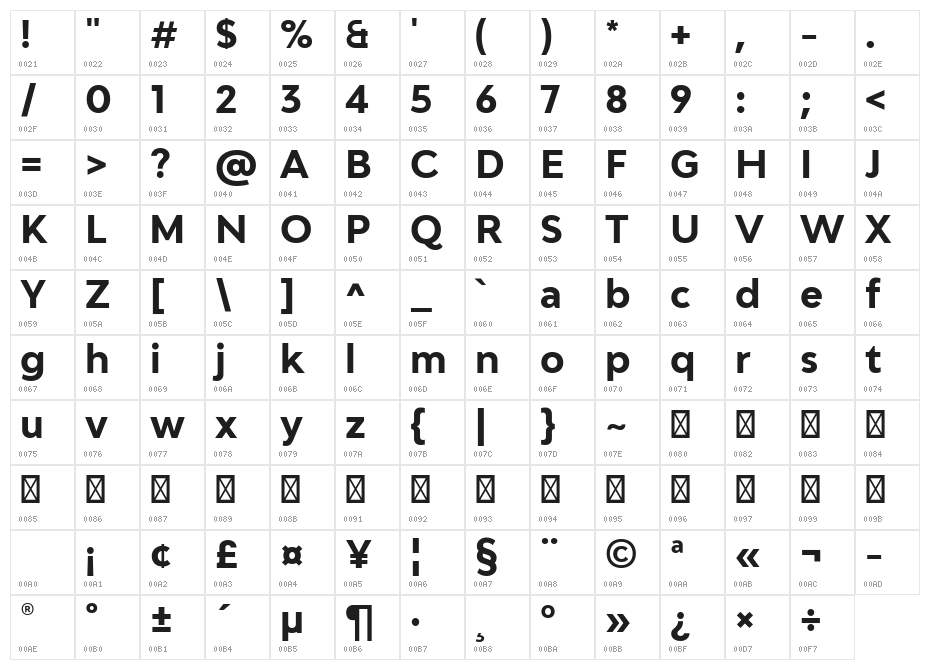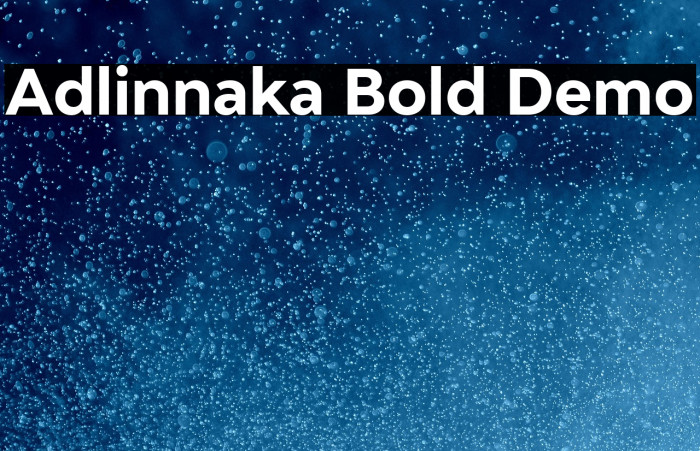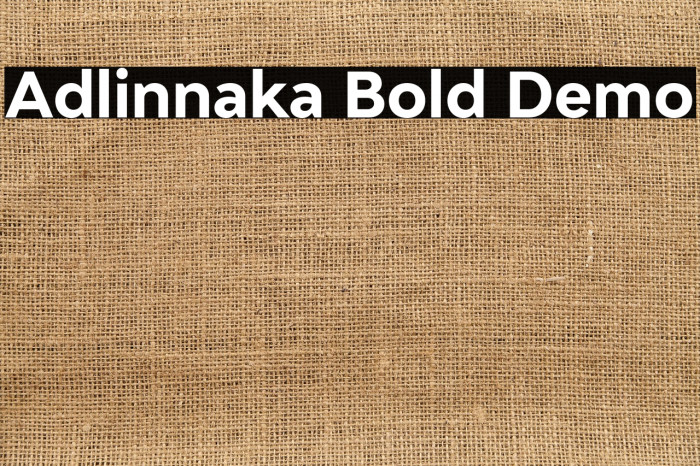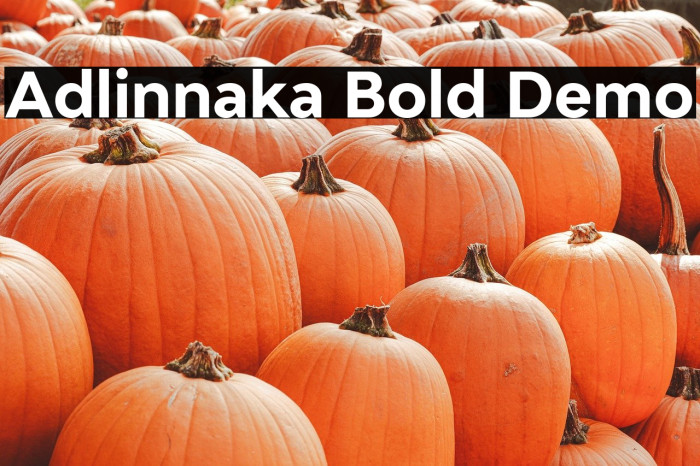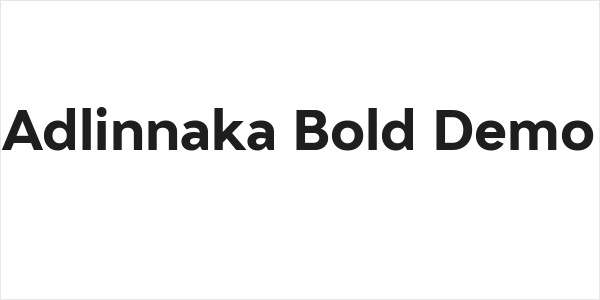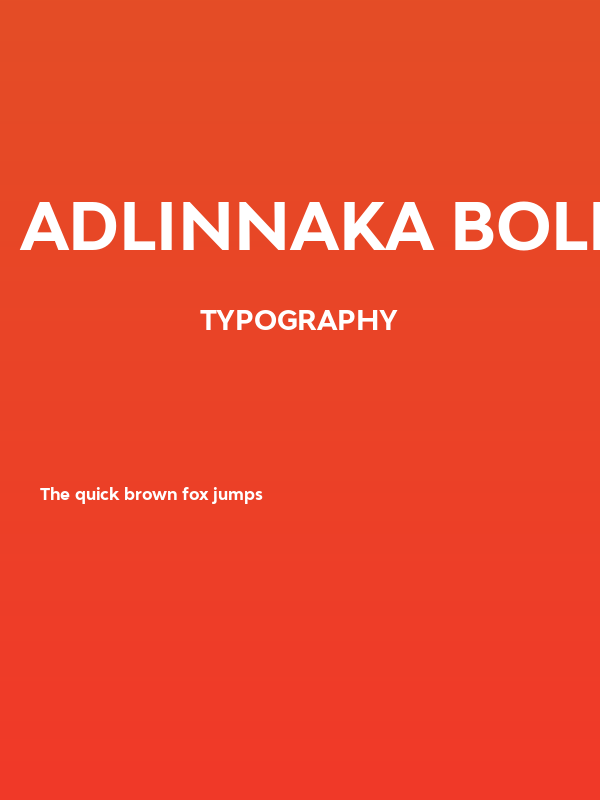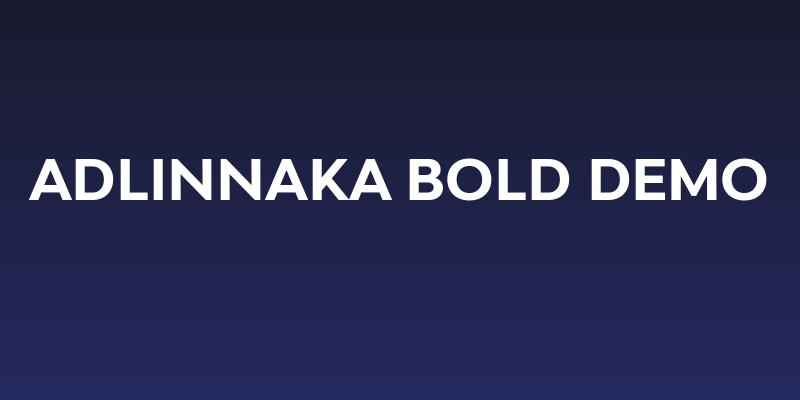
Adlinnaka Bold Demo Font
Adlinnaka Bold Demo Description
This font features a bold and modern sans-serif style with clean lines and a strong presence. The uppercase letters are uniform in height, providing a balanced and structured appearance. The lowercase letters maintain a consistent weight, contributing to the font's overall readability and versatility. The numerals are clear and distinct, making them suitable for various applications. The special characters are well-defined, enhancing the font's utility in diverse contexts. Its bold weight and straightforward design make it ideal for impactful headlines and attention-grabbing displays.